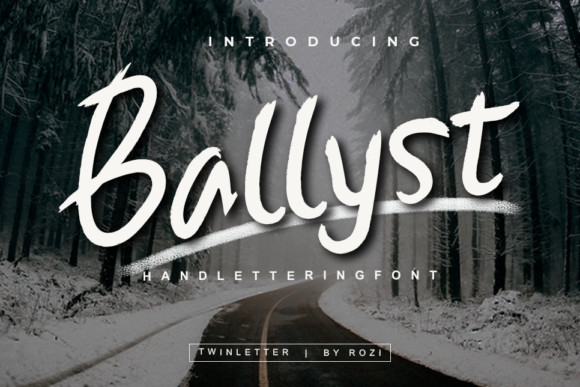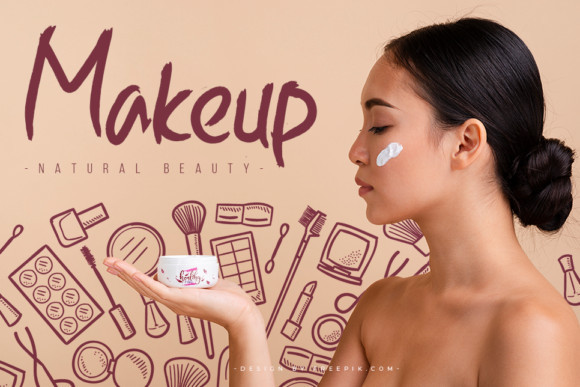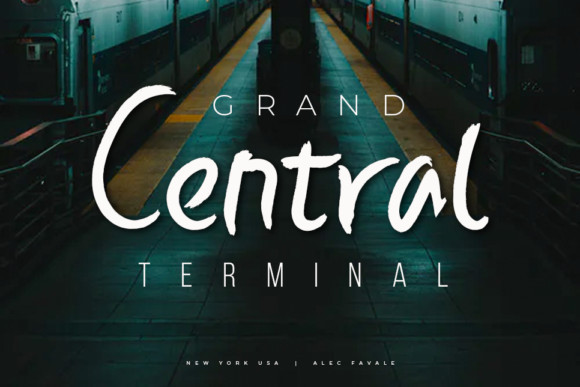
Ballist Font
Ballyst is a cute and casual handwritten font with an incredibly relaxed and friendly feel. Use this gorgeous and unique font to bring any DIY project to life!